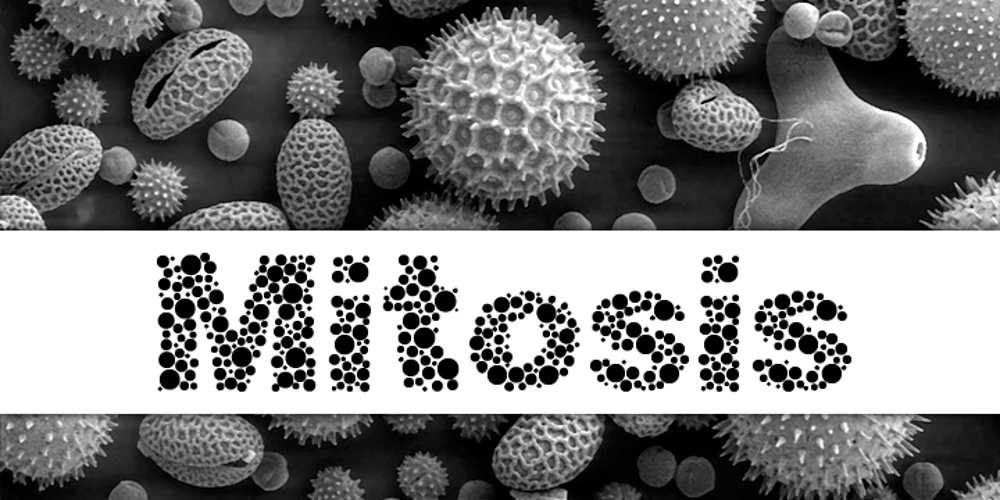
Mitosis Font Family was designed by Kent Swecker and published by A New Machine. Mitosis contains 1 styles and family package options. The dots forming this font are all hand positioned for maximum randomness! Great for display purposes or for logo work. Includes upper and lowercase, numbers, punctuation and Western European diacritics.